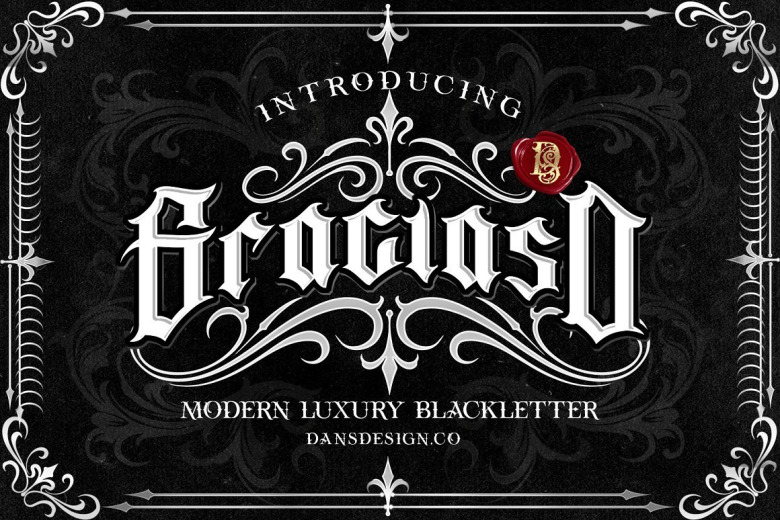
Graciaso Font
Graciaso is a detailed bold blackletter typeface. Because this is an imposing font with distinctive letter shapes it will easily be a match for various projects that need something special.
Graciaso Blackletter Font